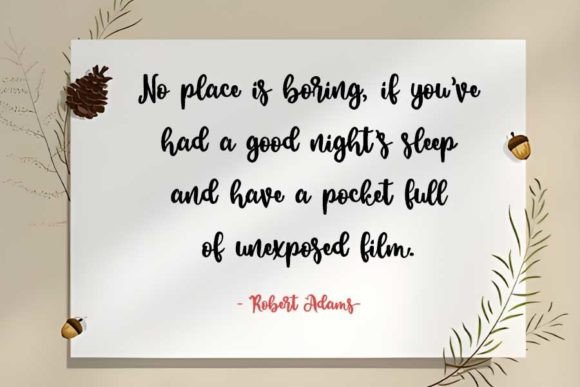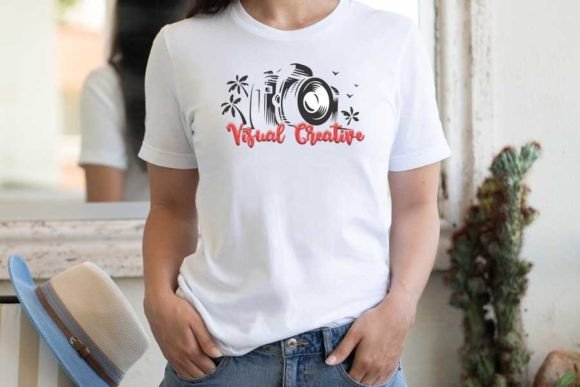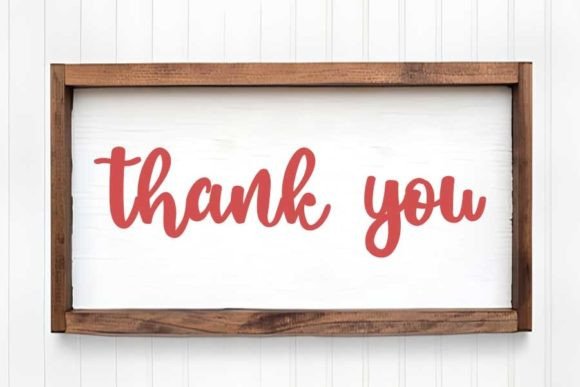
The Ultimate Guide to Fathers Font: A Relaxed and Laid-Back Handwritten Font
I still remember the design project that led me to discover Fathers Font. I was working on a branding project for a trendy new coffee shop, and I was struggling to find the perfect font to capture their laid-back vibe. That’s when I stumbled upon Fathers Font, and it instantly became my go-to. In this article, I’ll share my experience with Fathers Font, its features, and how to make the most of it in your designs.
An Honest Review of Fathers Font
Fathers Font has quickly become a staple in my font library, and here’s why:
- ✨ Relaxed and laid-back feel: Fathers Font has a unique, handwritten charm that adds a touch of warmth to any design.
- ✅ Versatility: This font can be used for a wide range of projects, from branding and advertising to packaging and digital media.
- ✅ Ease of use: Fathers Font is easy to read and works well in various sizes, making it perfect for both headings and body text.
However, no font is perfect, and Fathers Font has a few quirks:
- 🤔 Limited formal tone: Fathers Font is best suited for informal designs, and may not be the best choice for more formal or corporate projects.
- ⚠️ Kerning issues: As with any font, you may need to adjust the kerning to ensure optimal spacing between letters.
The Backstory of Fathers Font
Fathers Font was designed with the intention of creating a relaxed, laid-back font that captures the essence of casual, everyday conversations. The designer aimed to create a font that’s both friendly and approachable, making it perfect for designs that require a personal touch.
| Font Name | Fathers Font |
| Author | Leontyn Art |
| What type of projects is Fathers Font best suited for? | Fathers Font is perfect for informal designs, such as branding, advertising, packaging, and digital media. |
| Is Fathers Font suitable for body text? | Yes, Fathers Font is easy to read and works well in various sizes, making it suitable for both headings and body text. |